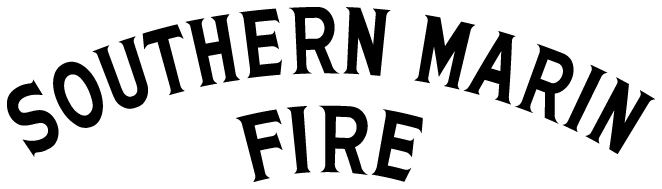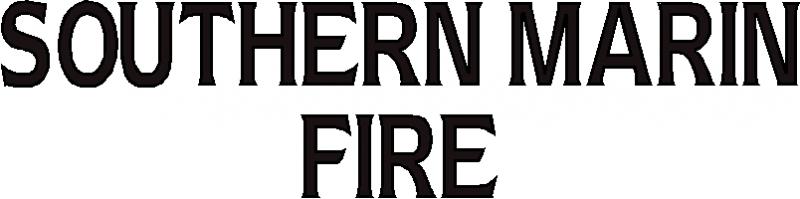
Fire Truck Font ID
Anyone recognize this one?
Looks to me to be a nice hand lettering job!
Notice the slight flat spot on the start of the curve on the 1st R ... caused by low tack tape when lettering.
Also the loop on the 1st R is a bit tighter.
If I'm not mistaken, that is in fact a font but it is exclusive to a particular fire apparatus manufacturer and it has been requested here on many occasions. Some years ago I had a conversation with one of the staff of the sign shop at one of the manufacturing facilities regarding either that font or a similar one and I was told that they digitized it based on a typeface one of the old timers used when hand gilding. I cannot recall which manufacturer it was.
The closest thing I know of is an early version of LHF HENSLER (not currently offered). HENSLER 2 Regular can be tweaked easily enough.
Closest I have are Newtext & Modesto...
It's definitely a font, as it's on all their other trucks in the pics, it would help in identifying it greatly if he had a pic of the text not arched.
If the manufacturer would have lettered it I could tell you, but since the local dealer subbed it out I can't get it.
He could possibly call and see which one sells to that dept, then see who did the lettering on their new truck; then ask them what font was used.
More than likely it is a digitized personal font from the original gilders lettering types. Having done quite a few firetrucks for a dealer down south here and communucating with quite a few "Firetruck gold men" over the years, I can assure you it was common practice as soon as dealers started wanting and calling for signgold many gilders digitized their own trademark fonts to keep their past clients happy and getting the same styles they had been paying for in the past,...I assure you when a client spends anywhere from a quarter to over a half million dollars for a vehicle they don't like seeing sudden differences in their identification due to a supplier not having the same font they have bought and paid for over a couple of decades and have come to expect,...I have been told many times the reason the fire dept came back to the dealer we served was among many other factors the consistency in the way we lettered their trucks and how well it held up,.....